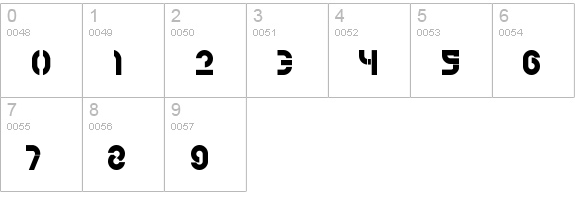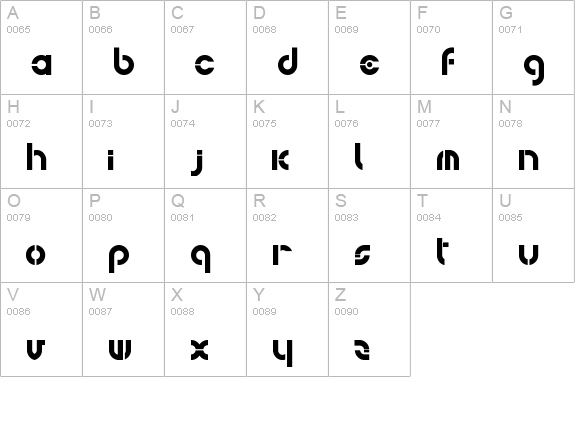
bohemica Font Details
Bohemica font is a unique and artistic typeface that exudes a sense of creativity and individuality. Its flowing lines and elegant curves give any text a touch of sophistication and charm. This font is perfect for adding a stylish and modern flair to any design project, whether it be for branding, invitations, posters, or social media graphics. The best part about Bohemica font is that it is completely free to download at FontsMarket.com. You can easily access this beautiful typeface and enhance your creations with its distinctive and eye-catching style. Don't miss out on the opportunity to elevate your designs with this stunning font that is both elegant and free to use.